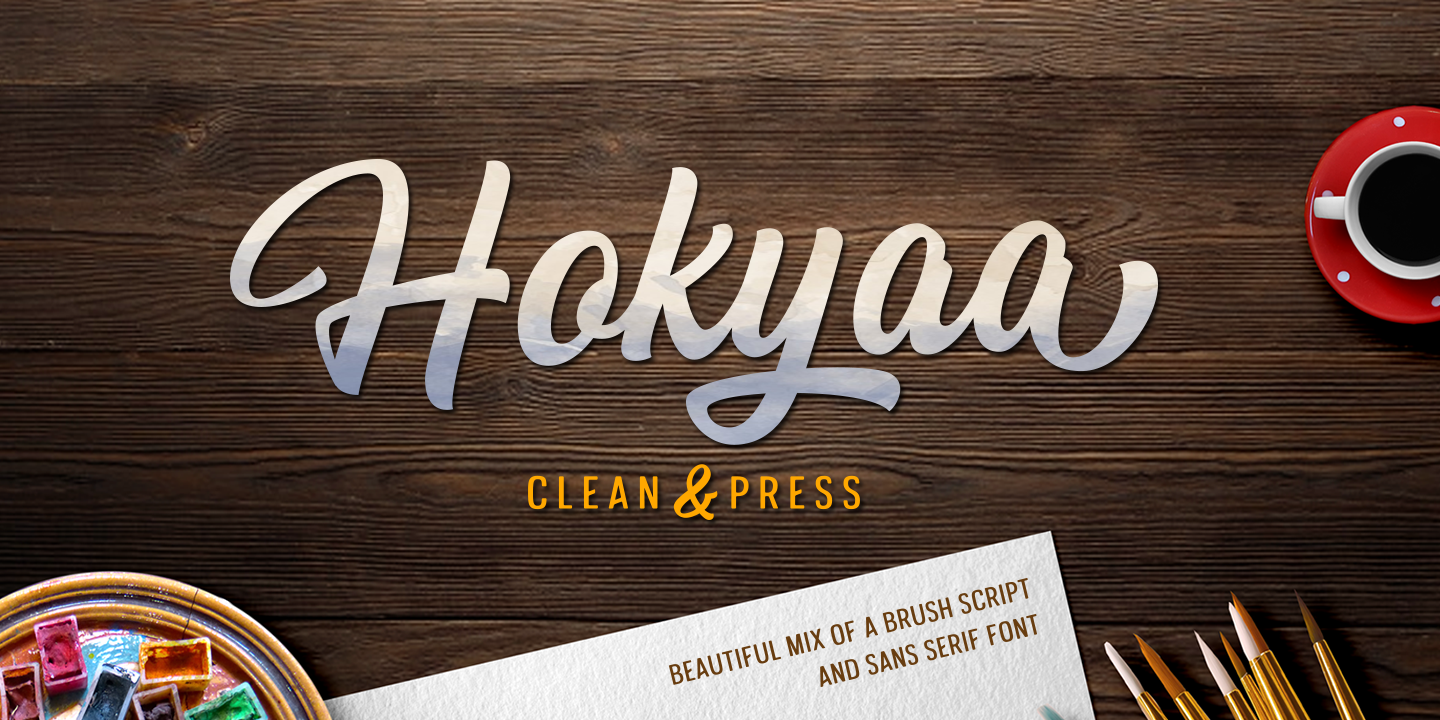
Hokyaa Font Free Download is an incredibly vibrant and playful typeface, perfect for designs that aim to be energetic, fun, or distinctly modern. Envision it bringing life to bold children's book titles, dynamic game branding, cheerful event posters, or exciting social media campaigns. Its unique and often whimsical character also makes it an excellent choice for eye-catching product packaging, creative app interfaces, and engaging t-shirt designs. Whether your goal is to convey a sense of youthful energy, quirky charm, or a strong contemporary presence, Hokyaa Font offers the stylistic punch to elevate your creative vision.
What makes Hokyaa Font truly exciting is its ability to instantly grab attention and inject a sense of joy into any design. It often features bold strokes, unconventional letterforms, or a distinctive bouncy rhythm that makes it feel alive and full of personality. This isn't just another display font; it's a meticulously crafted typeface that brings a unique blend of playful energy and undeniable impact to any text. Designers will appreciate its strong visual appeal and how it can effortlessly infuse a design with a dynamic, memorable character, making it a powerful choice for projects that need to stand out and communicate enthusiasm.
The Hokyaa Font family, while often celebrated for its singular, impactful display style, typically provides options to enhance its usability across different design needs. You can generally expect a Regular weight that forms the core of its aesthetic, capturing its characteristic energy. Sometimes, additional styles like Bold variations for even greater impact, or perhaps Outline versions for versatile layering, might be available. This focused yet adaptable range within the family ensures that Hokyaa Font Free Download can be effectively utilized for both prominent headlines where its unique charm can shine and for other creative applications where a consistent, vibrant style is desired.